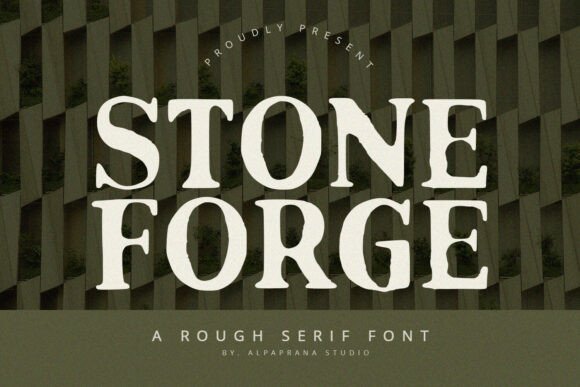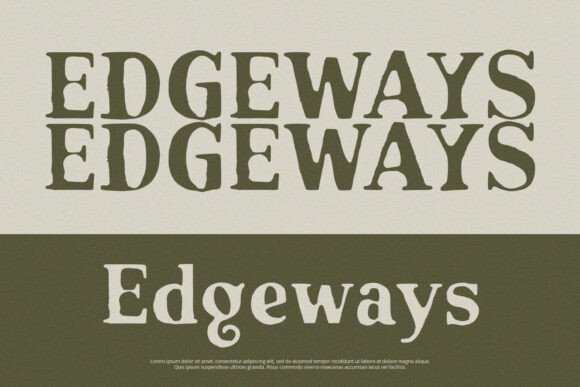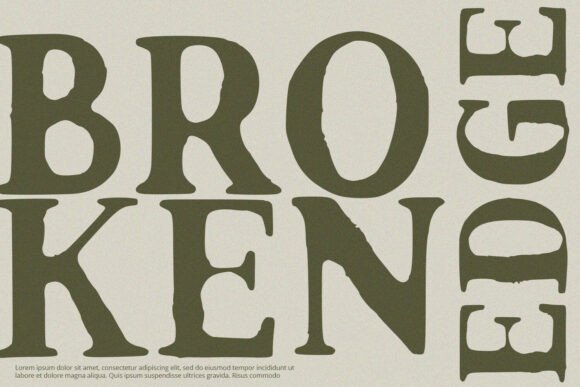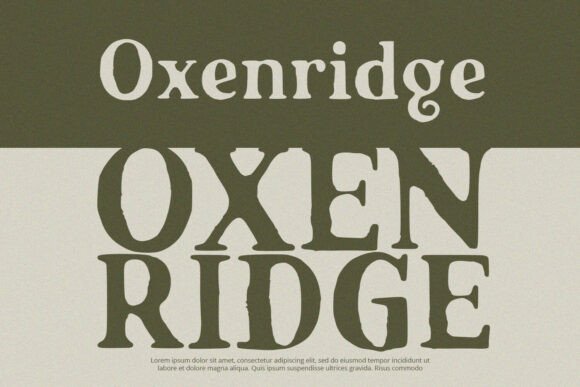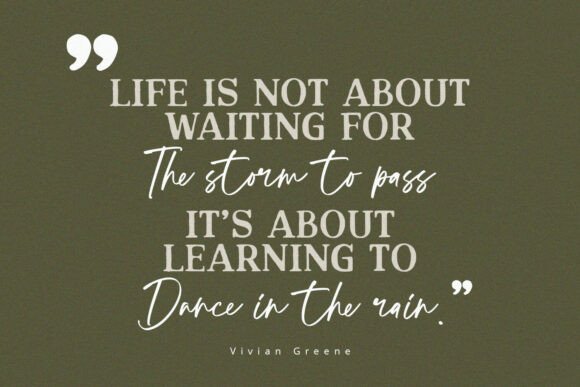
Stoneforge Font
Stone Forge is a bold, rough serif font that blends vintage charm with rugged strength. Featuring textured edges and handcrafted details, it carries the look of carved stone—solid, timeless, and powerful. Perfect for projects that demand a bold and distinctive voice, Stone Forge adds an authentic handcrafted aesthetic to your designs.
This font is ideal for logos, posters, branding, book covers, apparel, signage, and packaging where you want to communicate durability and creativity. With its rustic character and commanding presence, Stone Forge is a perfect choice for designers seeking a unique serif that balances tradition with artistic flair.